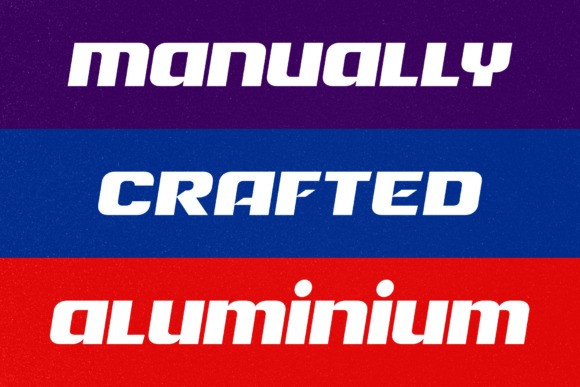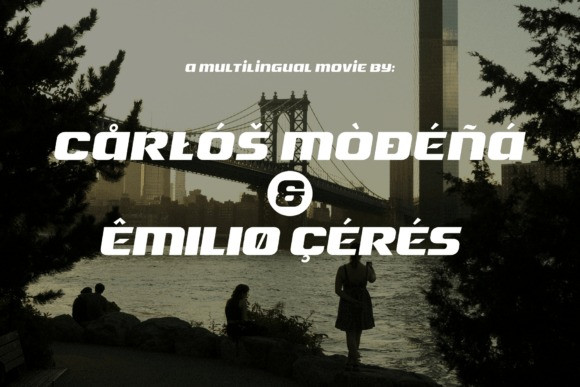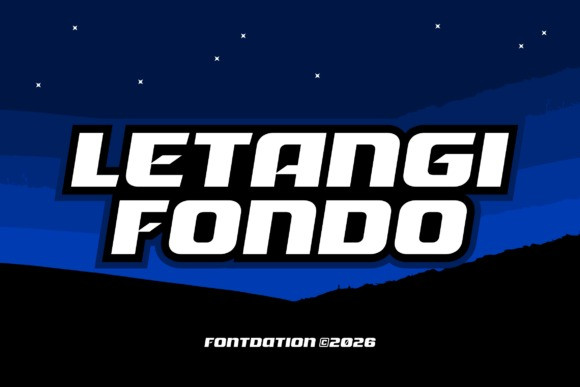
Letangi Fondo Font
Letangi Fondo Font our new font in sporty category. Designed in a slanted wide and bold personality, gives it an “in your face!” and also gives a dynamic feels. Suits best for logo/branding, titles, jersey number, sport letter things, and any design that needs an instant impact at very first glance. This is an all-caps font, so you can combine upper and lowercase to get more letter combinations.